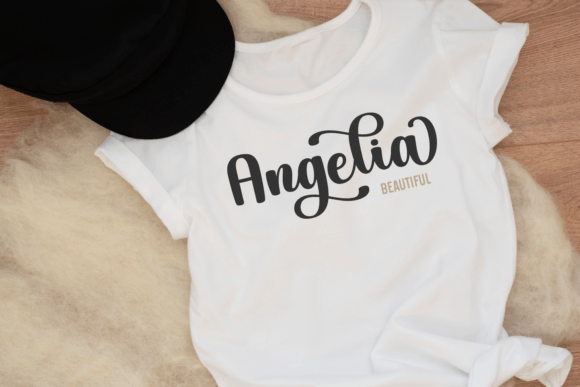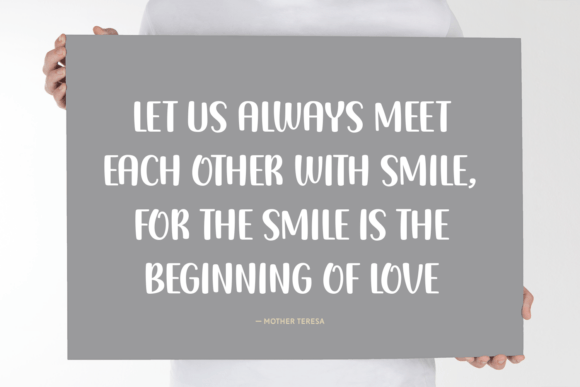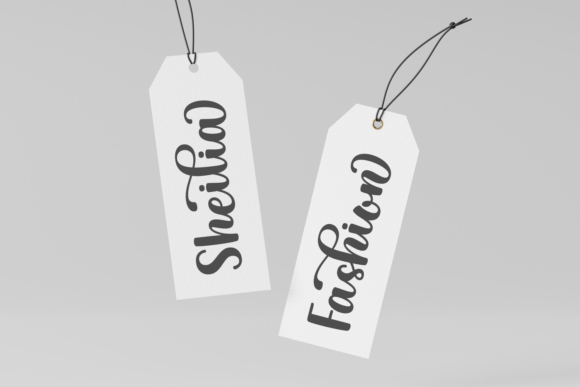
Have you ever stared at a blank page, trying to find the perfect words to bring your design to life? You know the feeling – the blank canvas, the racing thoughts, and the desperate search for the perfect font. For many designers, this is a familiar scenario. But what if you had the perfect font to make your project shine? Enter the Charlia Wishes Font, a bold script font that’s sure to make your text stand out.
This elegant, flowing font is perfect for creating eye-catching titles and invitations. Its modern look combined with a touch of classic charm makes it versatile for various designs. Whether you’re a seasoned designer or a beginner, the Charlia Wishes Font is a valuable addition to your toolkit, adding a stylish flair to your text and elevating your designs to the next level.
Key Features of Charlia Wishes Font
- Font Family: Charlia Wishes
- Font Size: 32,000+ glyphs, including Latin, Cyrillic, and Greek alphabets
- Resolution: Scalable to any resolution, ideal for digital and print media
- Unique Characteristics: Elegant script font with a whimsical touch, perfect for invitations, wedding stationery, and other special occasions
- Language Support: Multilingual support, including English, Spanish, French, German, Italian, and many more
Charlia Wishes Font Review
As a designer, I was excited to dive into the Charlia Wishes font, but my experience was a mixed bag.
- The Charlia Wishes font has a unique and whimsical feel that’s perfect for projects that need a touch of magic.
- The font’s irregularities and imperfections give it a hand-drawn feel that’s charming and attention-grabbing.
- The font comes in a variety of weights and styles, making it easy to use in a range of design projects.
- The font’s readability can be an issue at smaller sizes, making it less suitable for projects where clear typography is crucial.
- The font’s uniqueness can also be a double-edged sword – while it’s perfect for some projects, it may not be the best choice for more conservative or traditional designs.
Overall, I think the Charlia Wishes font is a great choice for designers looking to add a touch of whimsy to their projects. While it has some limitations, its unique feel and versatility make it a great addition to any design arsenal. With a bit of caution and careful consideration, I’d definitely recommend giving this font a try.
Tips for Getting the Most Out of Charlia Wishes Font
Use Charlia Wishes Font for designs that require a whimsical and elegant touch.
Pair it with bold colors and playful graphics for a unique and eye-catching effect.
Experiment with different font sizes and styles to add depth and interest to your design.
Event branding and marketing materials
Printed greeting cards and gift tags
Alternative Fonts to Charlia Wishes Font
Oswald is a sans-serif font that is often used for headings and titles due to its bold and modern look. It is suitable for use in magazines, newspapers, and other publications that require a strong, attention-grabbing font. Compared to Charlia Wishes Font, Oswald is more geometric and lacks the whimsical feel of Charlia Wishes.
Playfair Display is an elegant, high-end serif font that is often used for luxury brands and high-end publications. It is suitable for use in invitations, wedding stationery, and other formal documents. Compared to Charlia Wishes Font, Playfair Display is more refined and sophisticated, but lacks the playful feel of Charlia Wishes.
Lato is a modern sans-serif font that is highly legible and versatile. It is suitable for use in a wide range of applications, from body text to headings. Compared to Charlia Wishes Font, Lato is more minimalist and lacks the ornate feel of Charlia Wishes.
Great Vibes is a beautiful, elegant script font that is often used for creative and artistic applications. It is suitable for use in invitations, posters, and other promotional materials. Compared to Charlia Wishes Font, Great Vibes is more flowing and less structured, but lacks the whimsical feel of Charlia Wishes.
For optimal readability, we recommend using the Charlia Wishes Font at a minimum size of 12 points (12pt) for body text and 18 points (18pt) or larger for headings. This will ensure clear and legible text in most design applications.